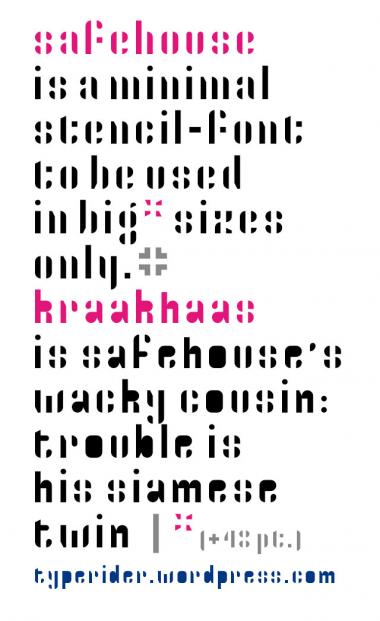
crackhouse rebaptized as kraakhaas
A worthy company to safehouse. 10/10
Congratulations! FontStruct Staff have deemed your FontStruction worthy of special mention. “crackhouse” is now a Top Pick.
cool stuff!
i think when naming fonts it's best not to infringe on others' copyrights. the name crackhouse is already in use by House Industries for one of their typefaces.
Sorry Paul, I didn't know, just fooling around with the safehouse-name. I'll try to rename it one of these days. Thanks for pointing out.
re: name copyright: i just did a quick check (google). if i understand correctly, you cannot copyright a name or title. copyright protection applies to the actual design, not the name it is given. that said, it's still probably a good idea to not use an existing name :)
Diggin in dirty. Love the &.
The Kraakhouse Awakes :)
Cool font
5/5 sublime !